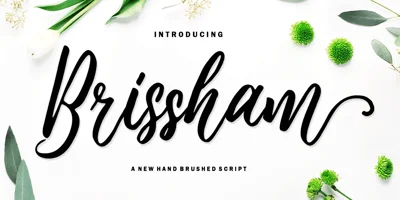
Brissham Font
Brissham Font is ideal for sophisticated corporate branding, luxury financial services, premium law firm identity, upscale real estate marketing, high-end consulting materials, executive business cards, formal document design, prestigious award certificates, elegant signage systems, and any distinguished project that demands authoritative typography with timeless professional appeal.
What makes Brissham Font exciting is its impeccable balance of traditional authority and contemporary sophistication that commands respect in any professional environment. This typeface embodies the essence of established excellence with letterforms that project confidence, reliability, and institutional gravitas. The font's distinguished character makes it perfect for brands and projects that want to communicate trustworthiness, expertise, and the uncompromising quality that defines industry leadership.
The Brissham Font family includes comprehensive weight variations and professional styles, featuring light, regular, medium, and bold versions along with condensed options and refined alternate characters. This extensive collection allows designers to create sophisticated corporate typography systems that maintain the font's signature authoritative character while providing exceptional flexibility for various professional applications and executive communications.
When exploring premium corporate typography, Brissham Font offers designers an exceptional opportunity to work with a typeface that authentically represents institutional excellence and professional distinction. This font demonstrates superior craftsmanship in its construction, with meticulously balanced proportions and refined details that ensure exceptional performance across all business applications and corporate environments.
Professional designers value Brissham Font for its remarkable ability to establish credibility and authority while maintaining approachable professionalism. The font's distinguished character makes it particularly effective for financial institutions, legal practices, and consulting firms seeking to project competence and reliability to discerning clientele who expect nothing less than excellence.
The enduring appeal of Brissham Font lies in its perfect representation of institutional quality and professional integrity that transcends industry trends and economic cycles. This typeface serves as a foundation for brands that need to communicate stability, expertise, and the unwavering commitment to excellence that defines true market leaders.
For creative professionals working with corporate and institutional clients, Brissham Font represents the ultimate typography solution for projects that need to convey authority, professionalism, and institutional excellence, ensuring every application reflects the premium quality and distinguished reputation that define industry-leading organizations.